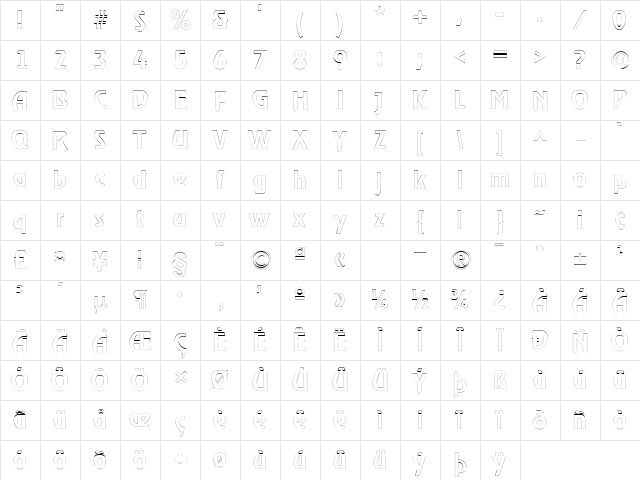
XanadauOutline Regular
Design Context for XanadauOutline
XanadauOutline is built around its visual character rather than neutral utility - its distinctive forms are designed to make an impression at display sizes.
Font Pairing: Pair with a clean neutral sans-serif for body copy to let XanadauOutline's character lead without overwhelming the composition.
Pro Tip: Use XanadauOutline exclusively at display sizes - it was designed to be seen, not read at length. Let a neutral companion handle body copy.